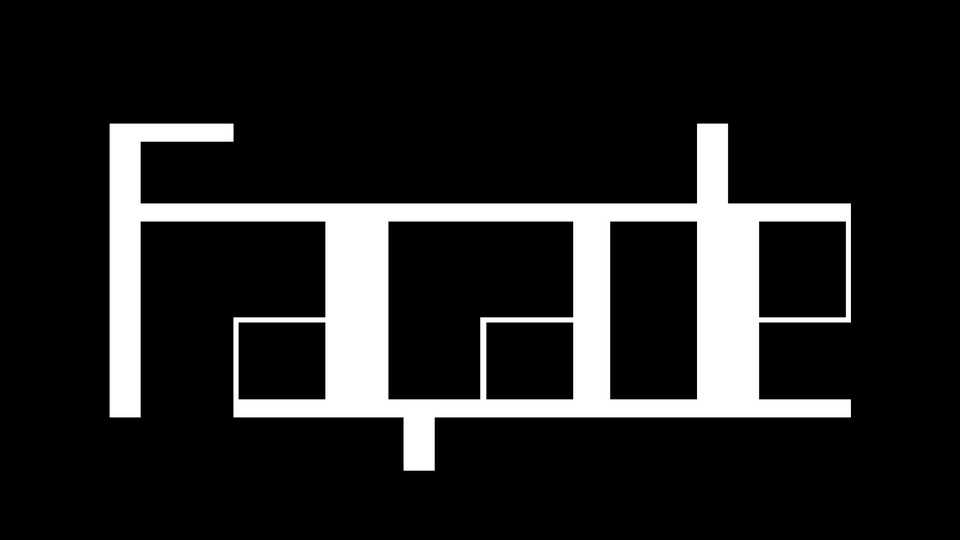
Download Facade font, a typography created from the architectural grid of the ÉSAD Orléans facade. The regular version is more faithful to the architecture than the bold version, which makes it more readable in small type sizes.